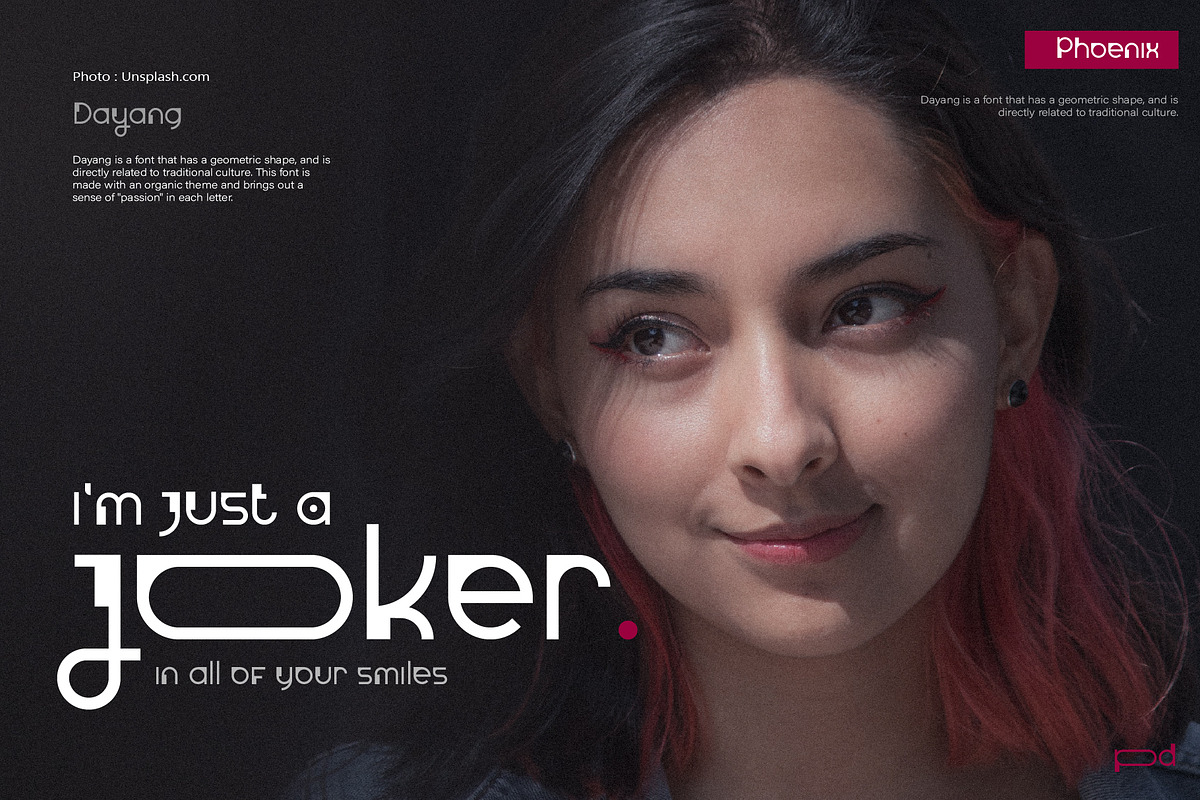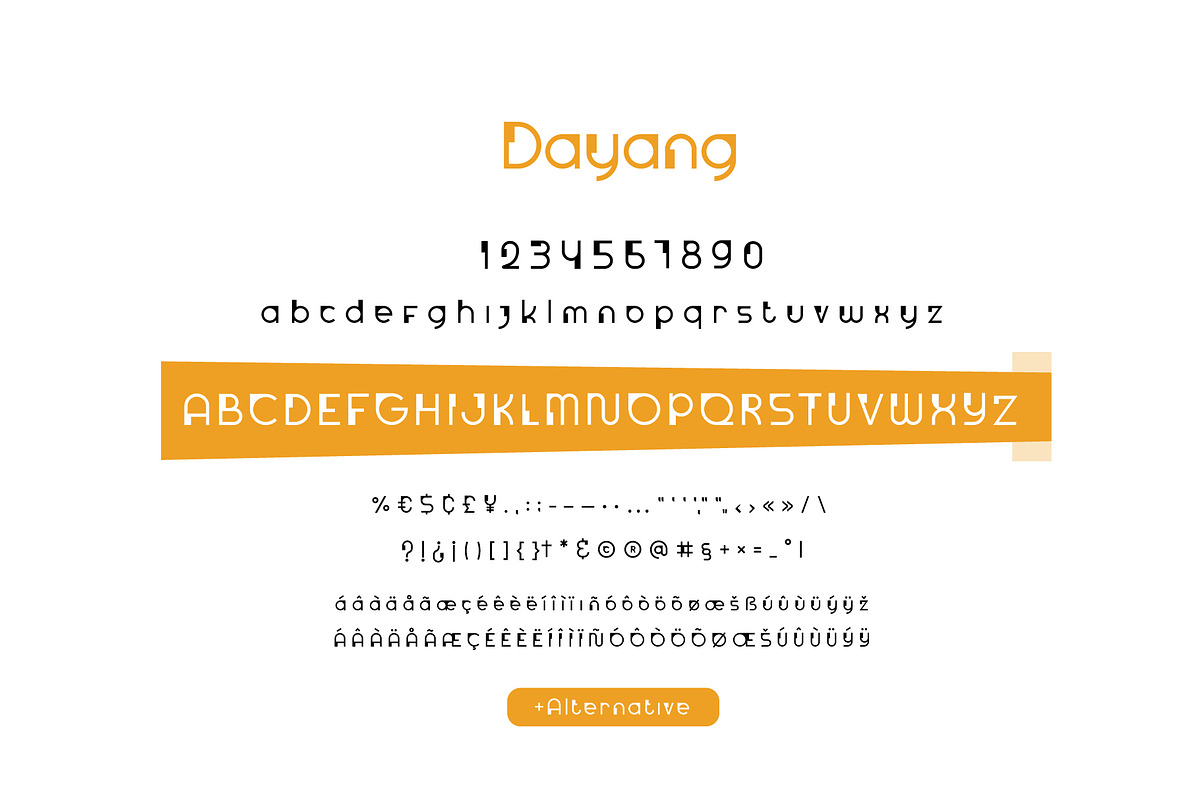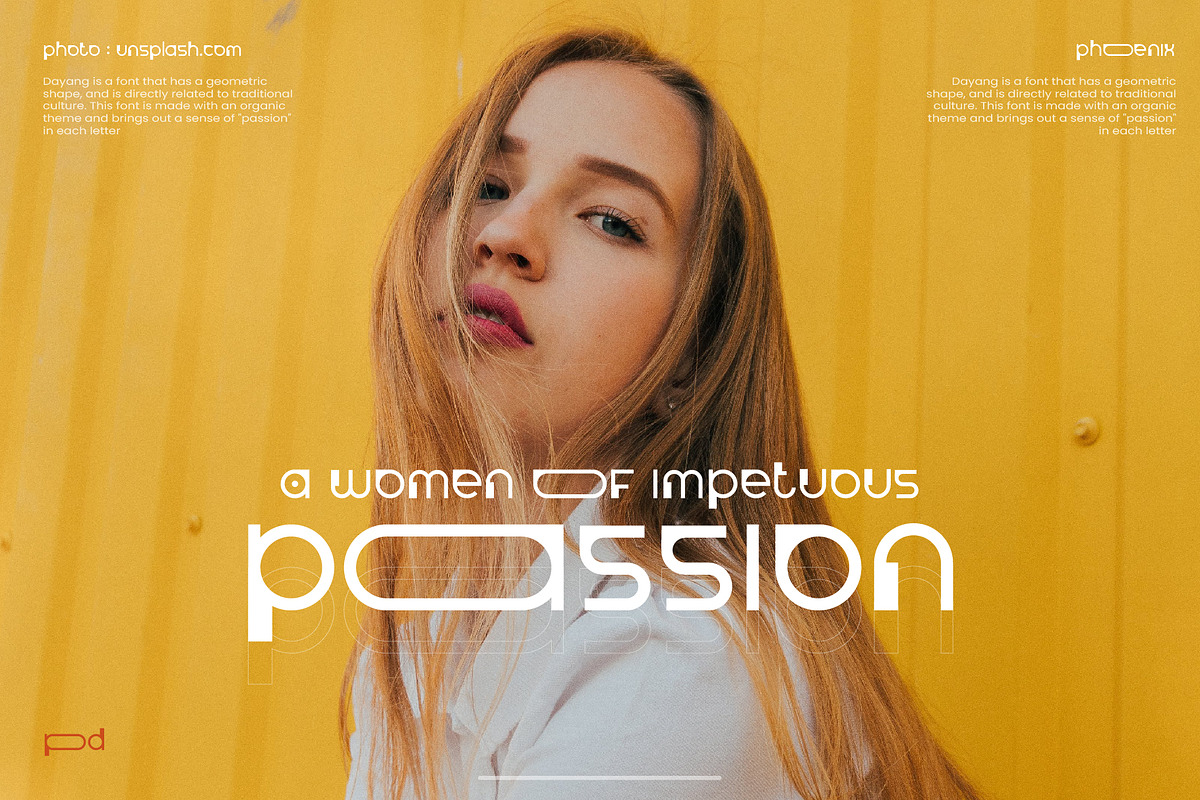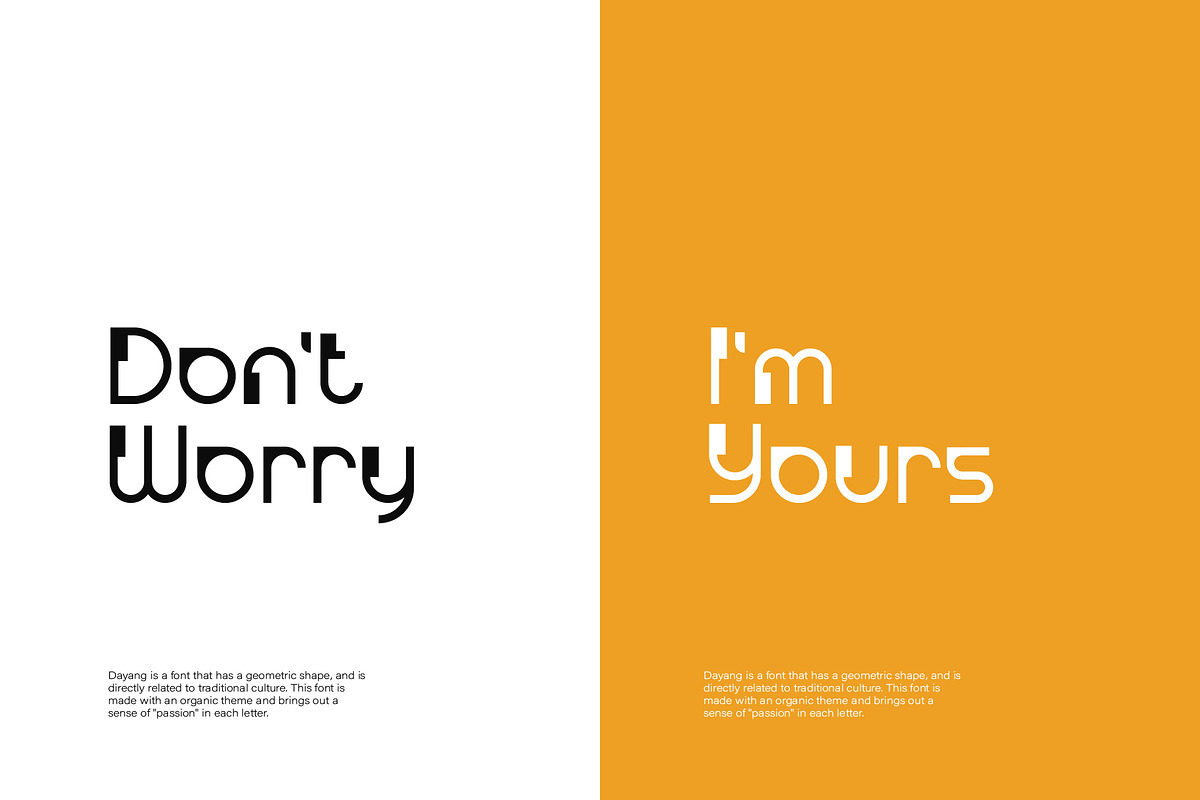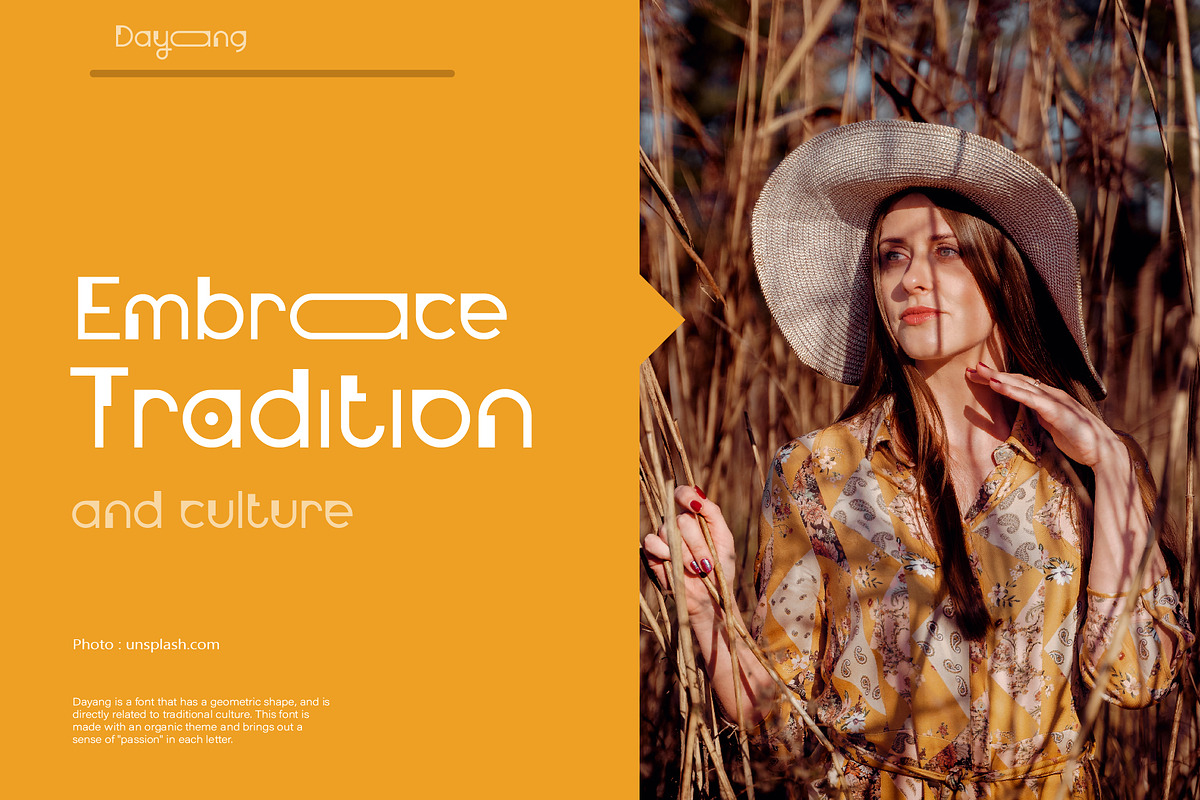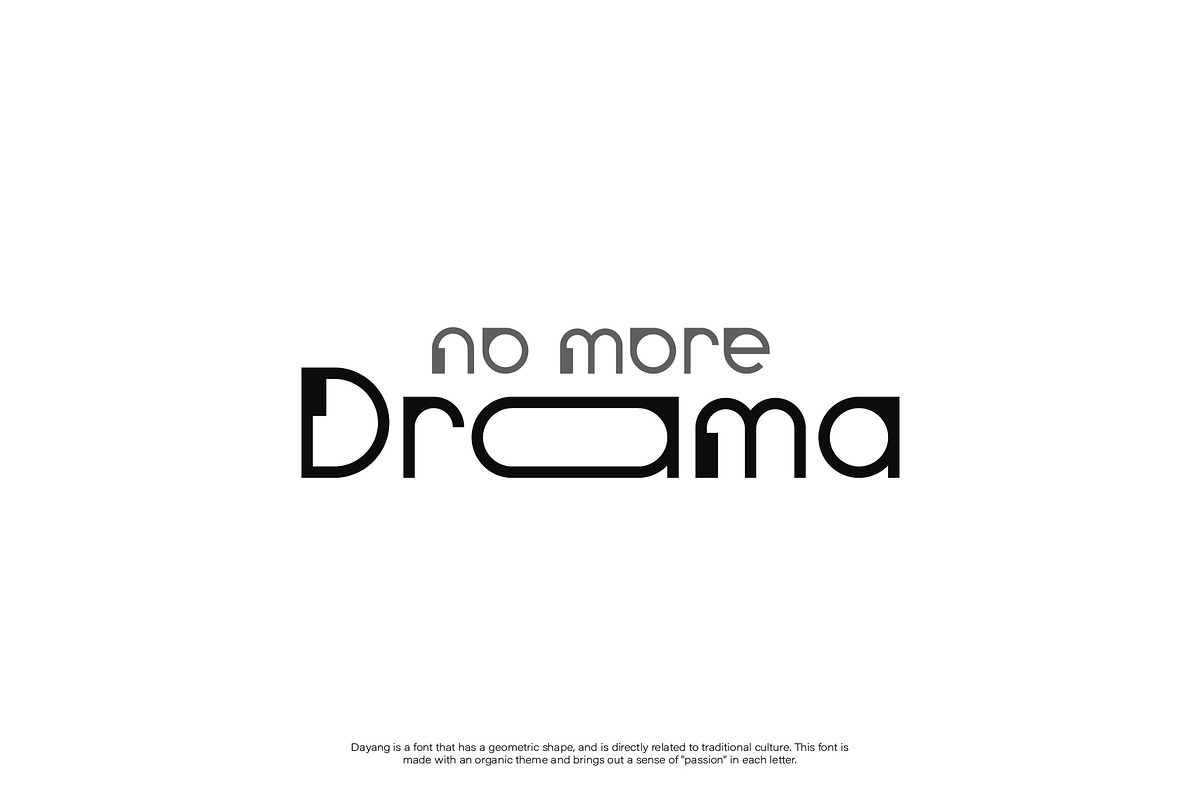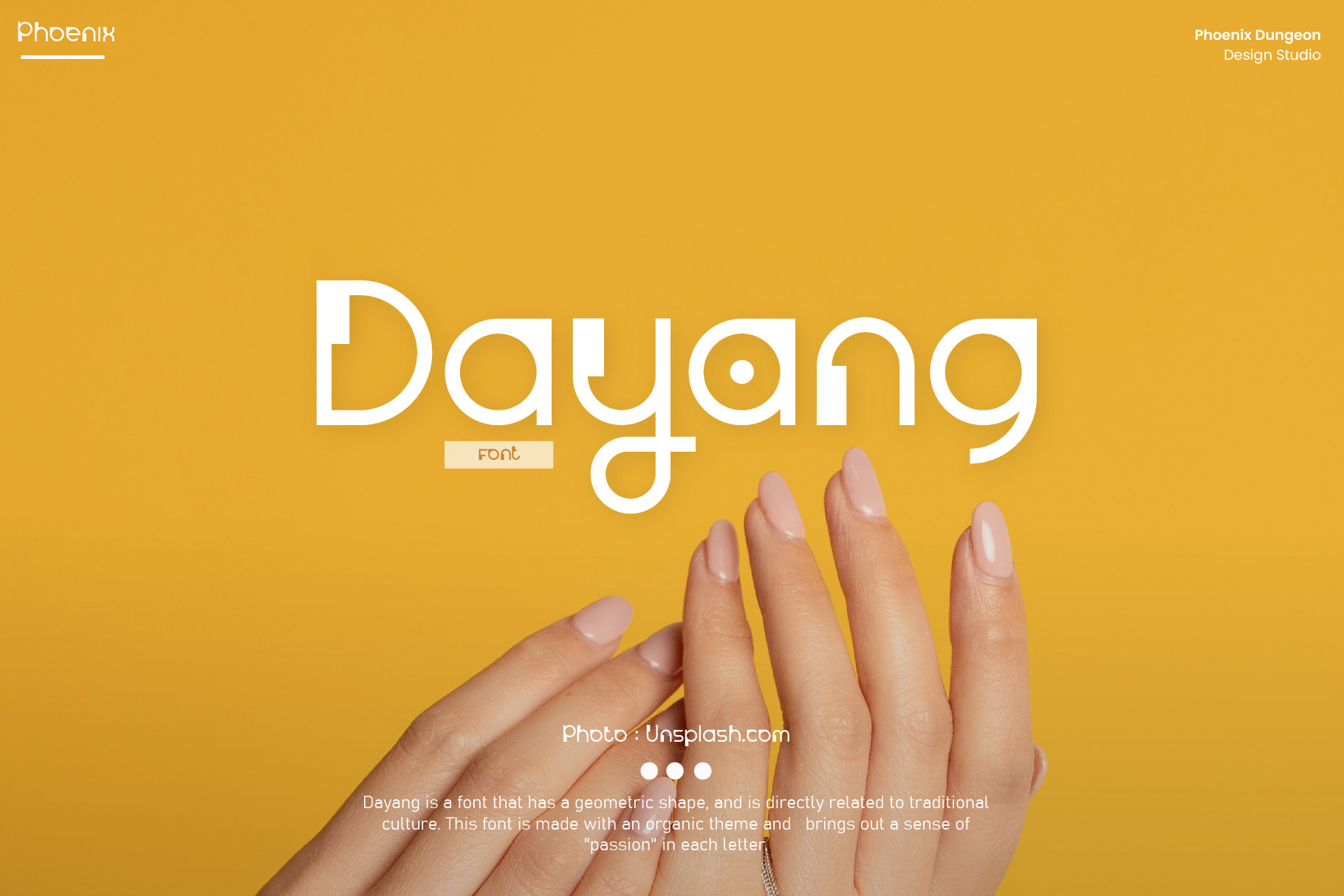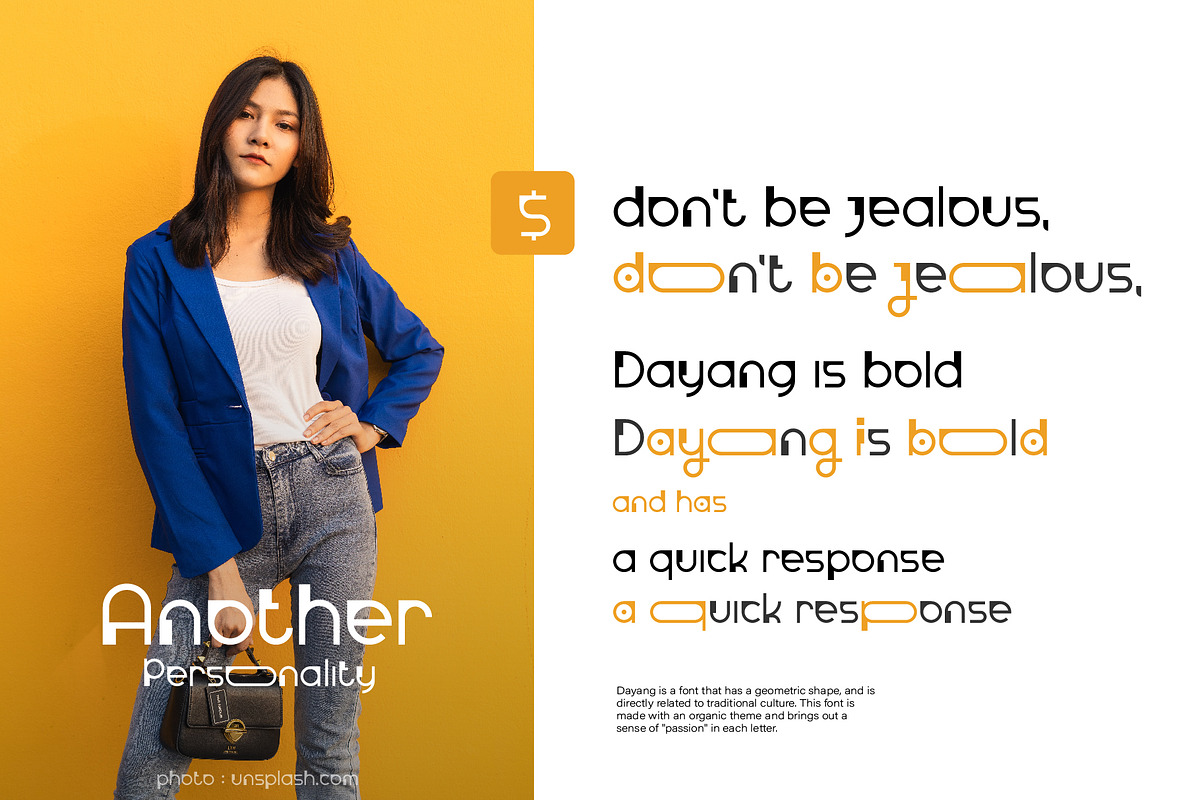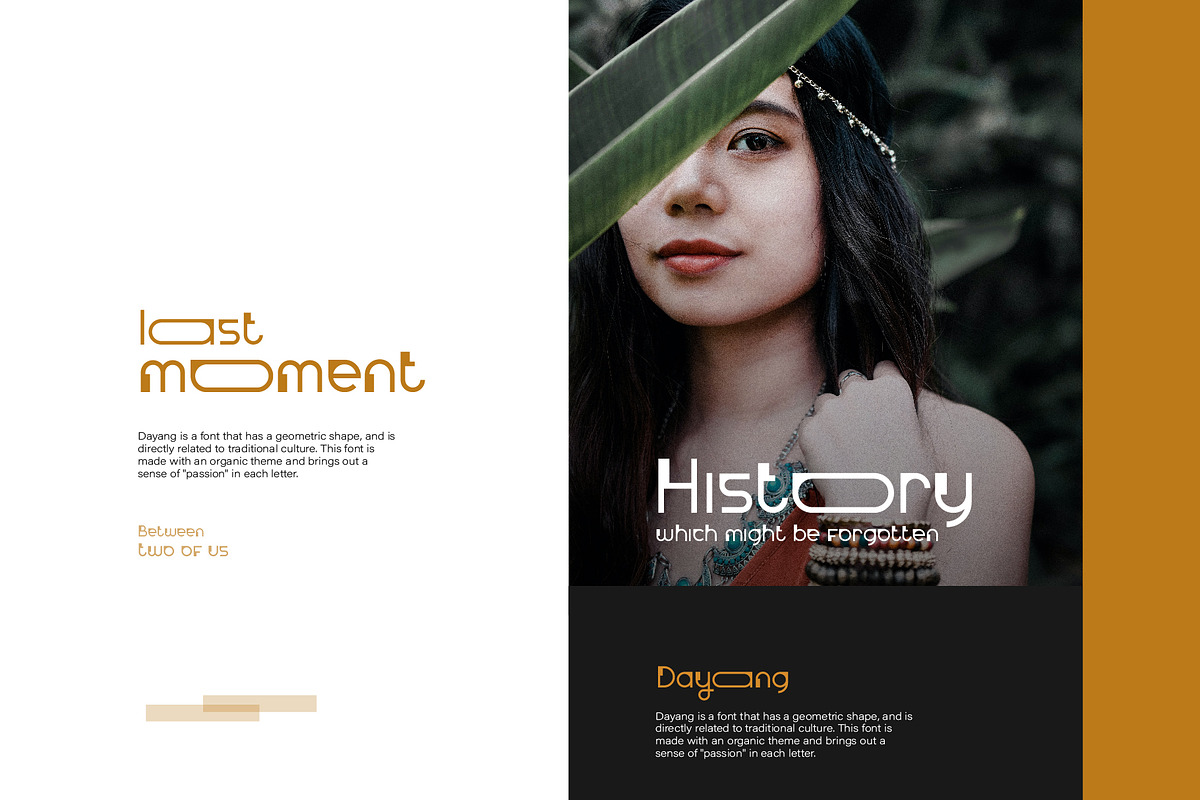
Dayang Font
Dayang is a font that has a geometric shape and is directly related to traditional culture. This font is made with an organic theme and brings out a sense of "passion" in each letter.